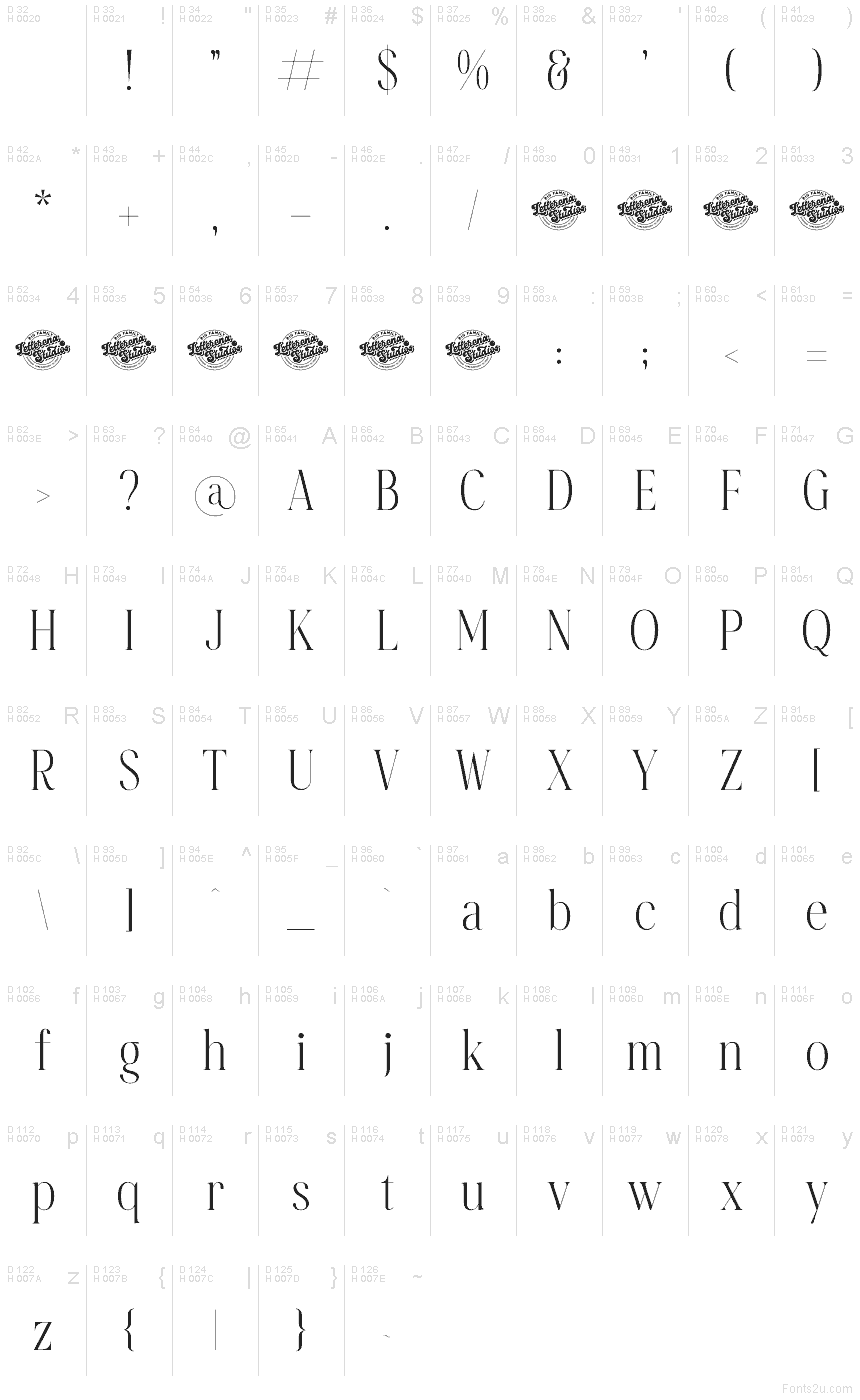
Forfelast Royalten font by Letterena Studios is a free modern serif typeface. Tall proportions, knife-thin hairlines, and taut spacing give it a crisp, couture snap—like ink pulled tight across fine paper. Letters stand narrow and poised, creating an immediate sense of polish without shouting. It’s the kind of serif that turns a simple wordmark into an event, with a graceful rhythm that stays sharp at larger sizes.
Using Forfelast Royalten, you’ll get effortless luxury for fashion editorials, boutique logos, fragrance or skincare packaging, magazine covers, upscale menus, and wedding suites. The slim forms keep space airy while the sturdy verticals anchor layouts, so headlines feel refined, not fragile. Pair this free font with a quiet grotesque sans for body copy, and give it a touch of letterspacing for extra shimmer.